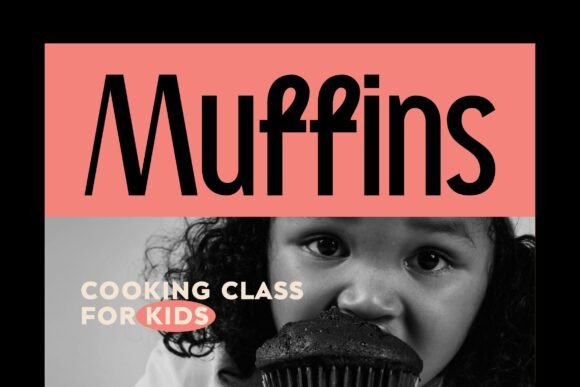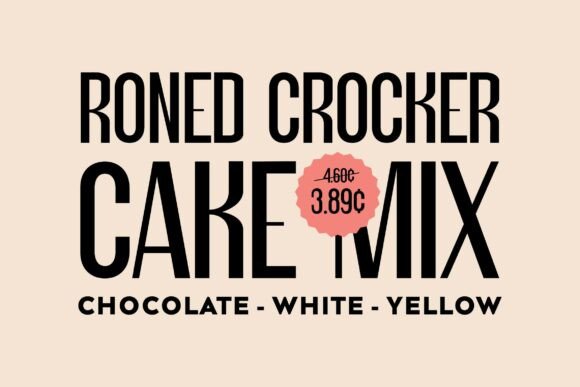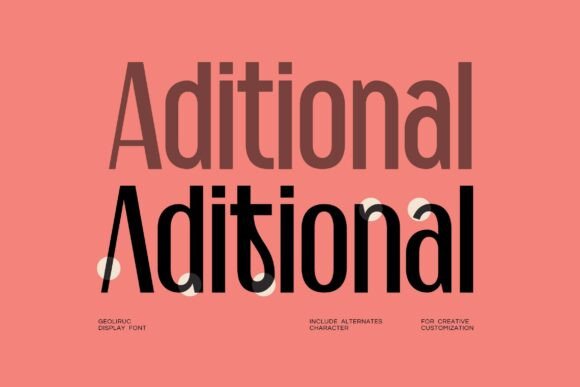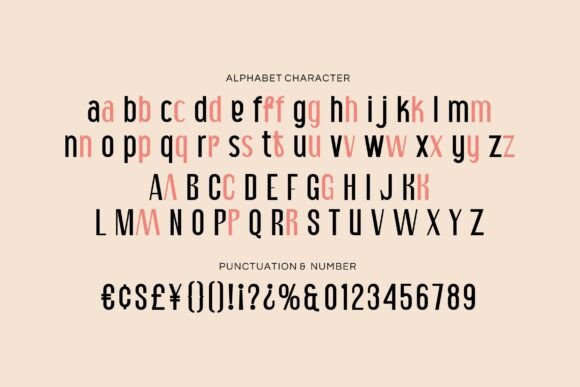
Introduction to Majoise Font
Have you ever been stuck on a design project, desperately searching for the perfect font to give it that extra oomph? We’ve all been there. The blank screen stares back at you, taunting you with its emptiness. But what if we told you that we’ve found the secret to making your designs stand out from the crowd? Enter Majoise Font, a bold, condensed display typeface that’s sure to command attention and leave a lasting impression.
With its sleek modernist geometry and playful alternates, Majoise Font is the ultimate design resource for any creative project. Whether you’re working on a high-quality branding campaign, a captivating website headline, or a cutting-edge packaging design, this versatile font is sure to deliver. And with its transparent background, you can easily overlay it on any image, giving your design a professional and polished look. The best part? You can access all glyphs, swashes, and alternate characters with ease, thanks to its PUA-encoded design.
Key Features of Majoise Font
- High-quality design resource ideal for creative projects requiring unique typography.
- Features a transparent background, making it easy to customize and integrate into any design.
- Unique characteristics include a whimsical and playful feel, making it perfect for children’s book illustrations or educational materials.
Honest Review: Majoise Font
As a designer, I’m always on the lookout for high-quality design resources to elevate my creative projects. The Majoise Font caught my attention with its sleek and modern aesthetic, making it a great addition to any design portfolio.
What works well: ✨ The Majoise Font is incredibly versatile, with a transparent background that makes it easy to use in a variety of design contexts. The font’s clean lines and minimalist design make it perfect for creating a professional and sophisticated look.
- Transparent background for easy use in various design contexts
However, there are a few limitations: ⚠️ The Majoise Font is not suitable for all types of designs, particularly those that require a more playful or whimsical tone. Additionally, the font may not be as distinctive or unique as some other options on the market.
Overall, I’m impressed with the Majoise Font and would highly recommend it to designers looking for a high-quality, versatile font for their creative projects. While it may have some limitations, its free download and transparent background make it a valuable resource for designers of all levels.
Tips for Getting the Most Out of Majoise Font
To get the most out of the Majoise Font, use it in conjunction with a transparent background to create a high-quality design. This will allow the font to stand out and make your design look more professional. Additionally, experiment with different font sizes and colors to find the perfect look for your creative project.
The Majoise Font is a versatile design resource that can be used in a variety of creative projects, including logos, business cards, and social media graphics. Its high-quality design and transparent background make it perfect for use in digital design.